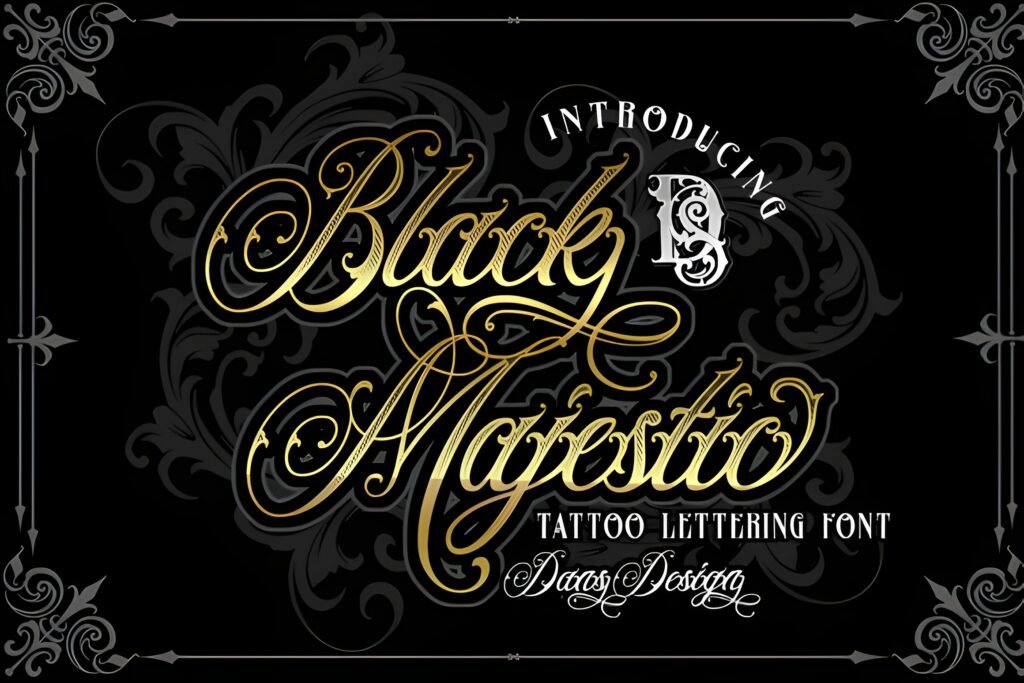
✒️ Black Majestic Font — Bold Blackletter Typeface for Tattoos & Vintage Branding
Black Majestic Font is a commanding presence in the world of Fonts for Tattoos, a bold blackletter typeface that merges gothic tradition with modern design power. Its unique and intriguing shapes give every word a dramatic personality, making it the perfect choice for projects that demand strength, artistry, and timeless appeal.
Crafted with precision, Black Majestic balances sharp edges with ornamental curves, creating a font that feels both rebellious and refined. This distinctive style makes it ideal for tattoos, product logos, poster titles, headlines, packaging, badges, apparel prints, and creative branding projects. Whether you’re designing a meaningful tattoo quote, a striking logo, or a bold headline, Black Majestic ensures your text commands attention and leaves a lasting impression.
Key Advantages
- Top Fonts for Tattoos — perfect for names, quotes, and symbolic phrases with gothic intensity.
- Bold blackletter style — merges medieval heritage with modern design sophistication.
- Versatile applications — suitable for tattoos, logos, posters, packaging, apparel, and lifestyle graphics.
- Readable yet decorative — balances clarity with ornamental artistry for professional use.
- Timeless appeal — bridges gothic tradition with contemporary creative needs.
With Black Majestic Font, your words become more than text — they transform into visual emblems of strength, culture, and gothic elegance, making this typeface a must‑have for tattoo artists, designers, and creatives seeking bold impact.